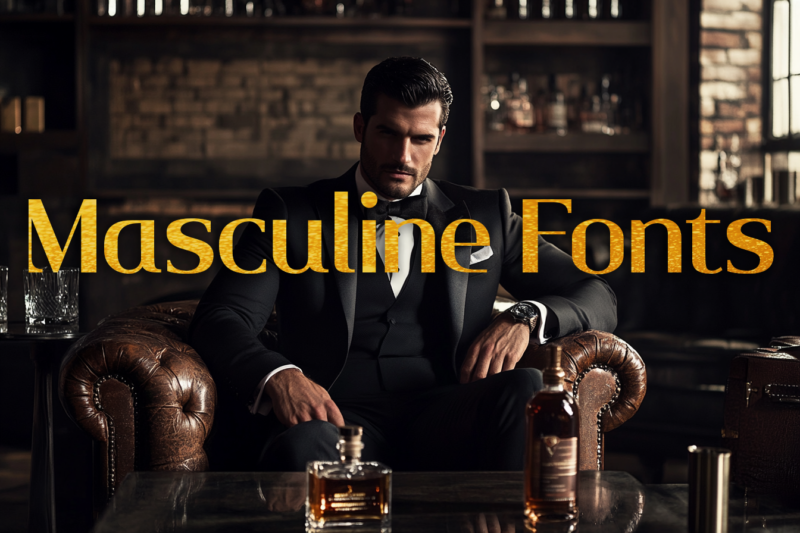
36 Best Masculine Fonts with Real Manly Style
As both a designer and typography enthusiast, I’m always searching for fonts that convey strength, confidence, and authority in my work.
Whether I’m designing a sports team logo, crafting branding for a barbershop, or creating packaging for outdoor gear, the right masculine font can instantly communicate power and reliability.
In this article, I’ll share my picks for the best masculine fonts that can give your designs that bold, commanding presence.
These robust typefaces embody the strong, structured aesthetic that defines masculine design, so let’s explore some powerful options.
My Top Picks for Masculine Fonts
Rocky
Embodying raw strength and modern masculinity, Rocky stands firm with its powerful geometric forms and confident stance. Perfect for sports brands, fitness equipment, and rugged outdoor products seeking that unshakeable presence.
Warnok
Striking the perfect balance between authority and approachability, Warnok’s clean sans-serif lines command respect while maintaining readability. Ideal for corporate identities and professional branding that needs to project strength.
Madson
A versatile powerhouse combining modern edge with masculine energy across multiple styles. Its comprehensive character set makes it perfect for creating cohesive brand identities that flex from headlines to body text with consistent strength.
Rowland
Merging sophistication with strength, Rowland brings refined masculinity to modern design. Its classy character makes it ideal for luxury men’s products and high-end brands that demand both power and elegance.
Blocklyn
Built like the urban landscape it’s named after, Blocklyn’s condensed forms stand tall with metropolitan confidence. Perfect for architectural signage, urban brands, and contemporary design needing that city edge.
Bagille
Combining bold brush strokes with masculine energy, Bagille brings raw authenticity to hand-lettered designs. Its natural flow makes it perfect for craft brands, artisanal products, and designs that need that human touch with muscle.
Kohm
With its robust slab serifs and vintage industrial character, Kohm recalls the golden age of manufacturing. Ideal for hardware brands, workshop signage, and any design needing that classic factory floor feeling.
Saito
Roaring with vintage automotive spirit, Saito brings the essence of classic garage culture to life. Its mechanical precision and retro flair make it perfect for auto shops, motorcycle brands, and gear head culture.
Extra Giant Pressed
Making a massive impact with its pressed letterforms, Extra Giant commands attention through sheer scale and presence. Perfect for posters, headlines, and brand statements that need to dominate the space.
Northden
Forged with industrial grit and rough-hewn character, Northden embodies the spirit of heavy industry. Its rugged edges and strong foundations make it ideal for construction, manufacturing, and tough-built brands.
Silverback Blackletter
As powerful and imposing as its namesake, this blackletter font brings medieval strength to modern design. Perfect for brands wanting to project heritage, strength, and uncompromising character.
BASTON
Engineered for modern business with clean, authoritative lines, BASTON brings professional confidence to corporate design. Its refined sans-serif character makes it perfect for business communications and brand identity systems.
Dozer
Pushing through with unstoppable force, Dozer’s heavy weight and bold presence bulldoze their way into memory. Ideal for sports teams, energy drinks, and brands that need to make an aggressive impact.
Piedmont
Rising like its mountainous namesake, Piedmont brings natural grandeur to script typography. Its confident strokes work beautifully for outdoor brands, adventure gear, and nature-inspired designs.
Godger
Streamlined and dynamic, Godger’s condensed forms cut through the noise with razor-sharp precision. Perfect for modern tech brands, sports equipment, and designs needing that swift, powerful energy.
Saxvon
Commanding attention with its bold serif presence, Saxvon brings stately authority to display typography. Ideal for luxury brands, editorial headlines, and designs that need to project established confidence.
Great Kings
Wearing its royal heritage with pride, Great Kings combines pressed texture with majestic presence. Perfect for vintage-inspired luxury brands and designs that need to convey time-tested authority.
When thoughtfully applied, these bold and commanding typefaces will give your work the strength and authority it needs to stand out. So fire up your design software and start creating with confidence!